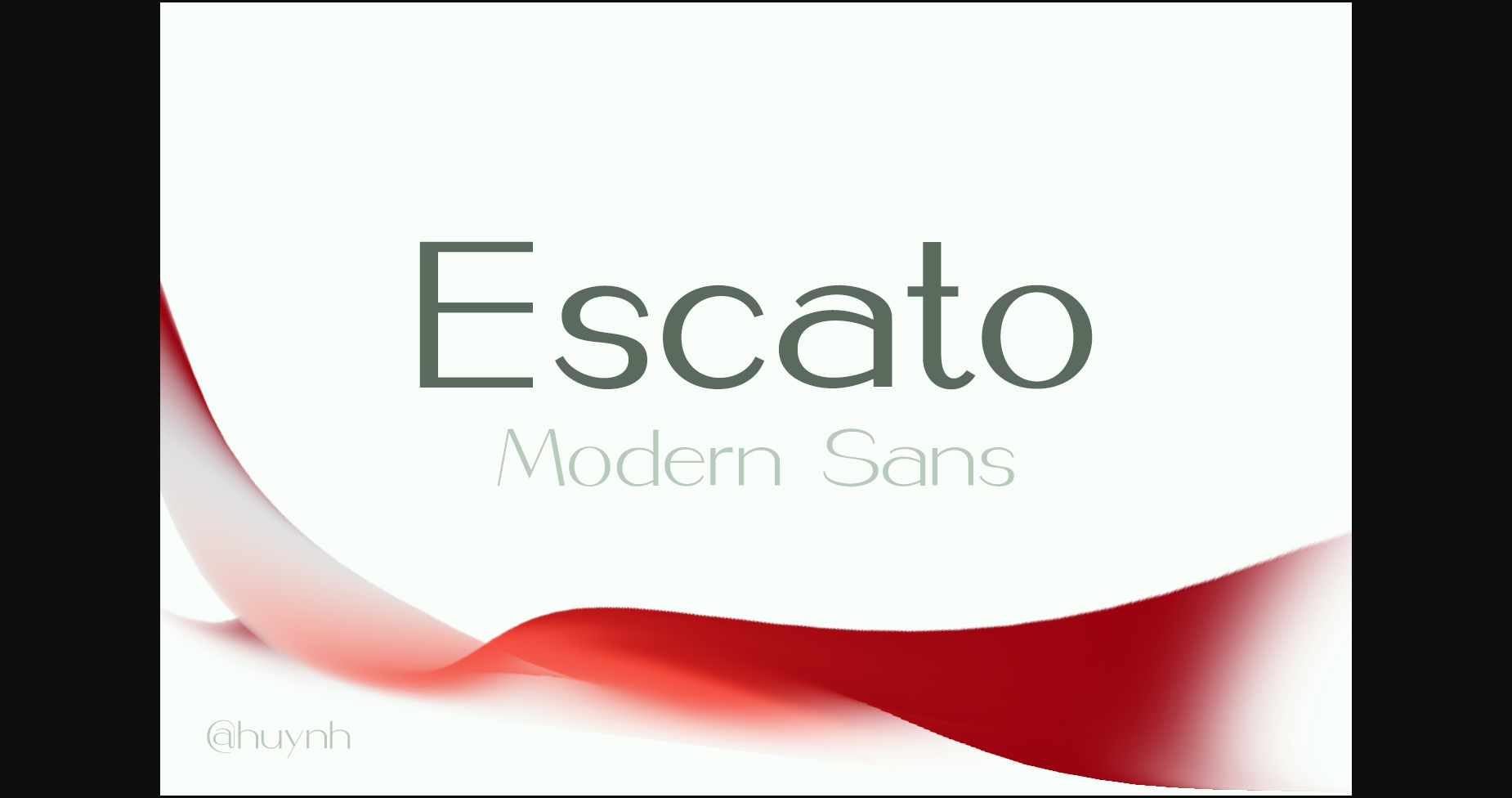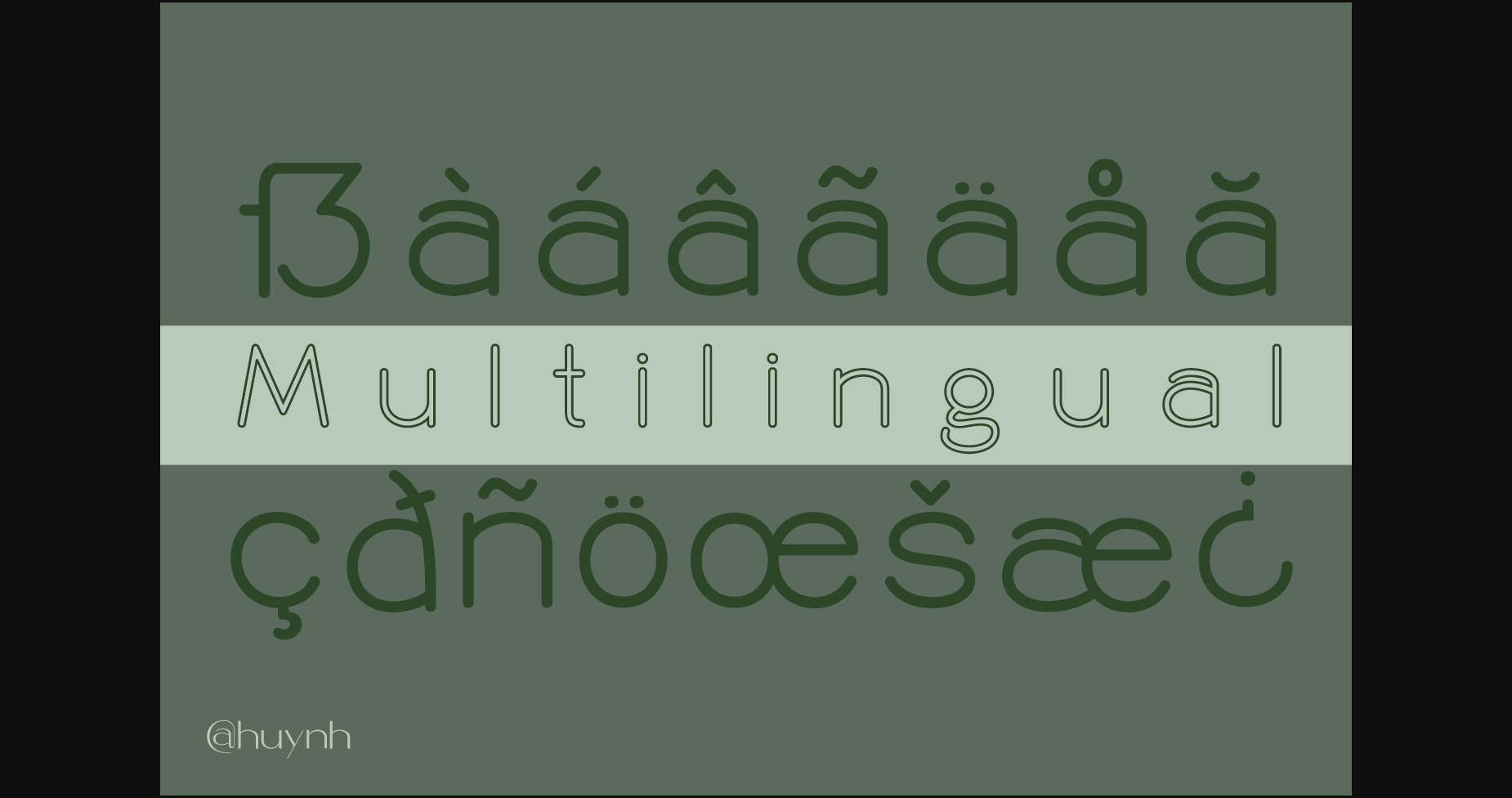
About Escato Font
Escato is a modern sans serif font family with a simple design and a little break-rule, consisting of 5 styles ranging from Regular, Bold, Round, Bold Round, and Outline. Escato is suitable for products with simple but sophisticated and equally creative designs, such as magazine, book look, business card, logo, branding, etc.